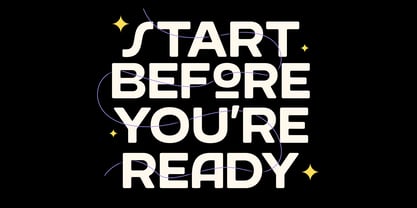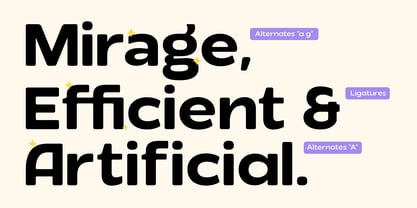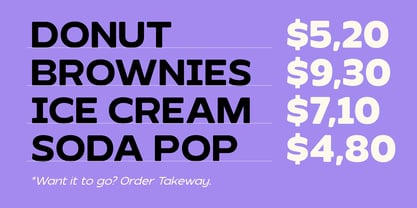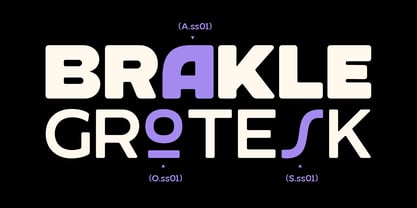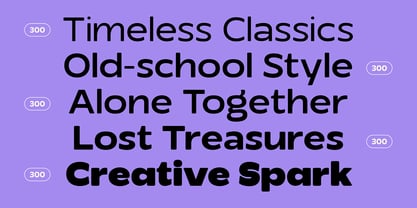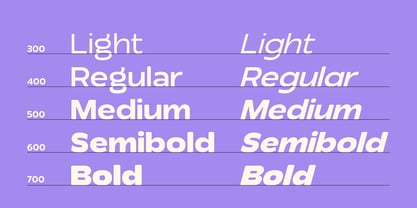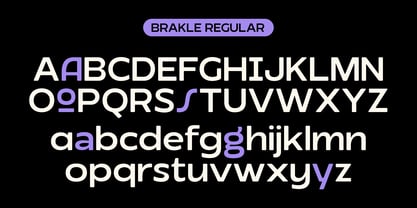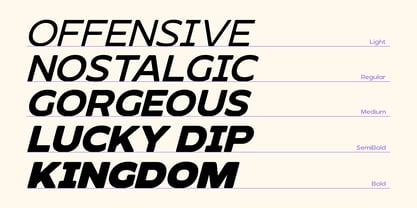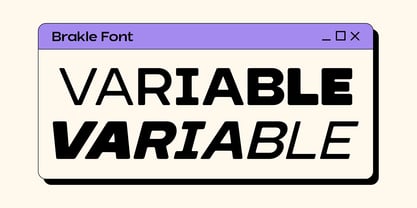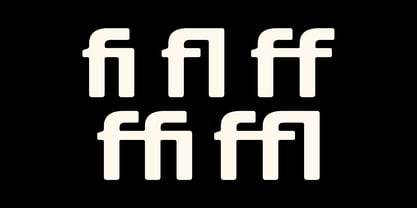
Brakle
by Graptail
The Brakle Font Family was designed by Teuku Deky Firnanda and published by Graptail. Brakle contains 10 styles and family package options.
Brakle Font is a captivating sans-serif font family with 10 carefully crafted variations designed to infuse your designs with a unique retro touch. This font seamlessly combines the elegance of modern sans serif typography with a nostalgic nod to the retro era, creating the perfect blend of past and present.
Brakle Font offers maximum flexibility to meet all your design needs. Each font variant has been thoughtfully created to evoke distinctive impressions, ranging from bold expressions to subtle softness, suitable for various creative projects.
Brakle